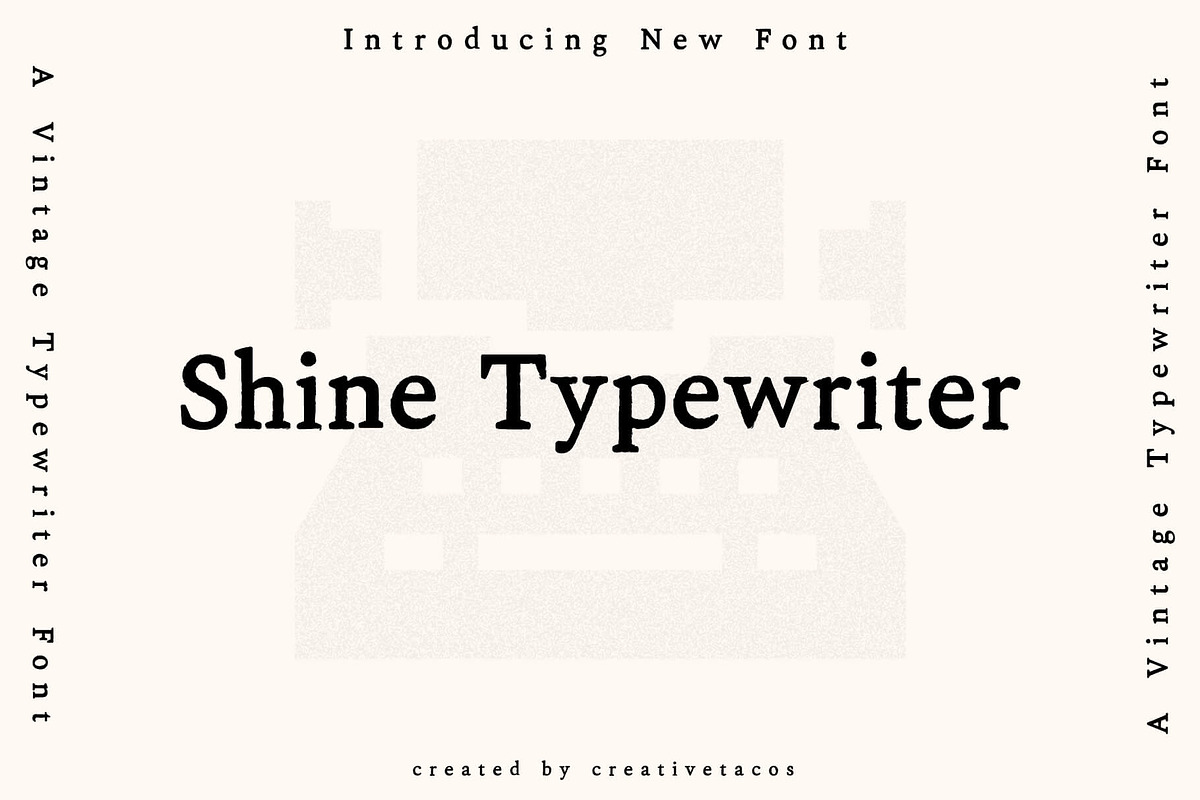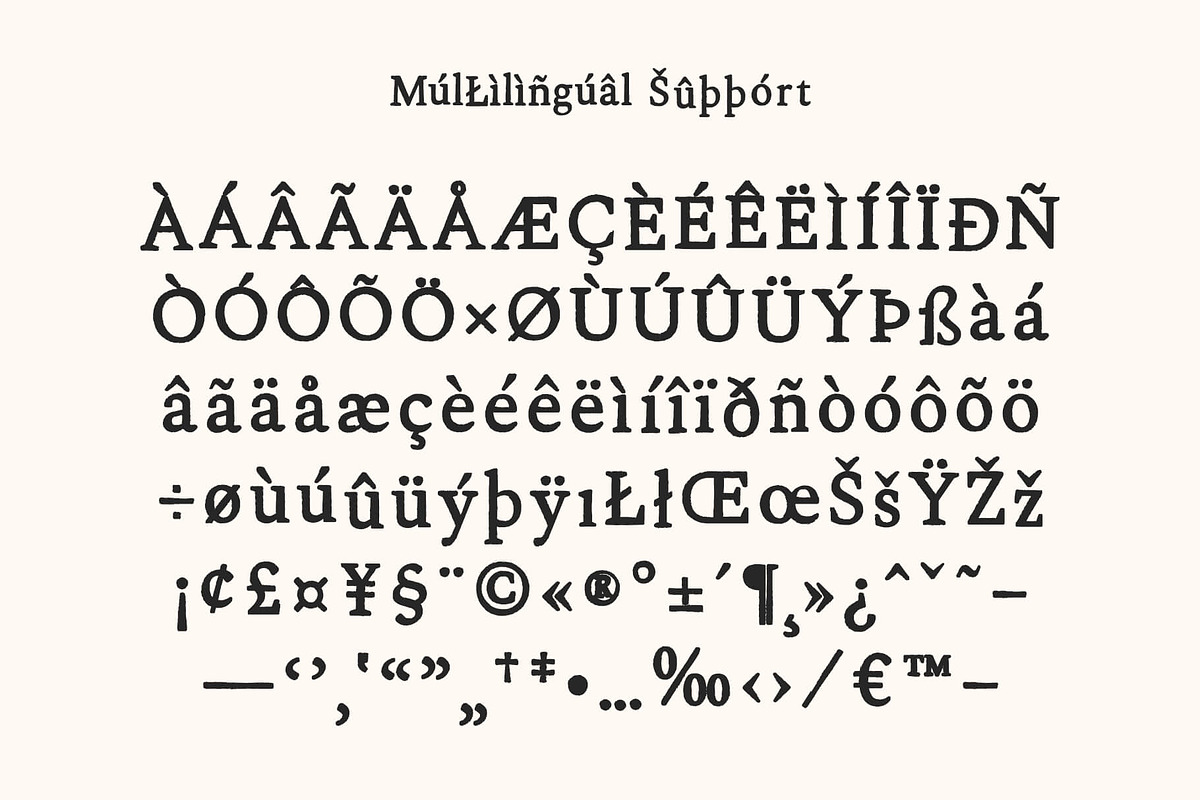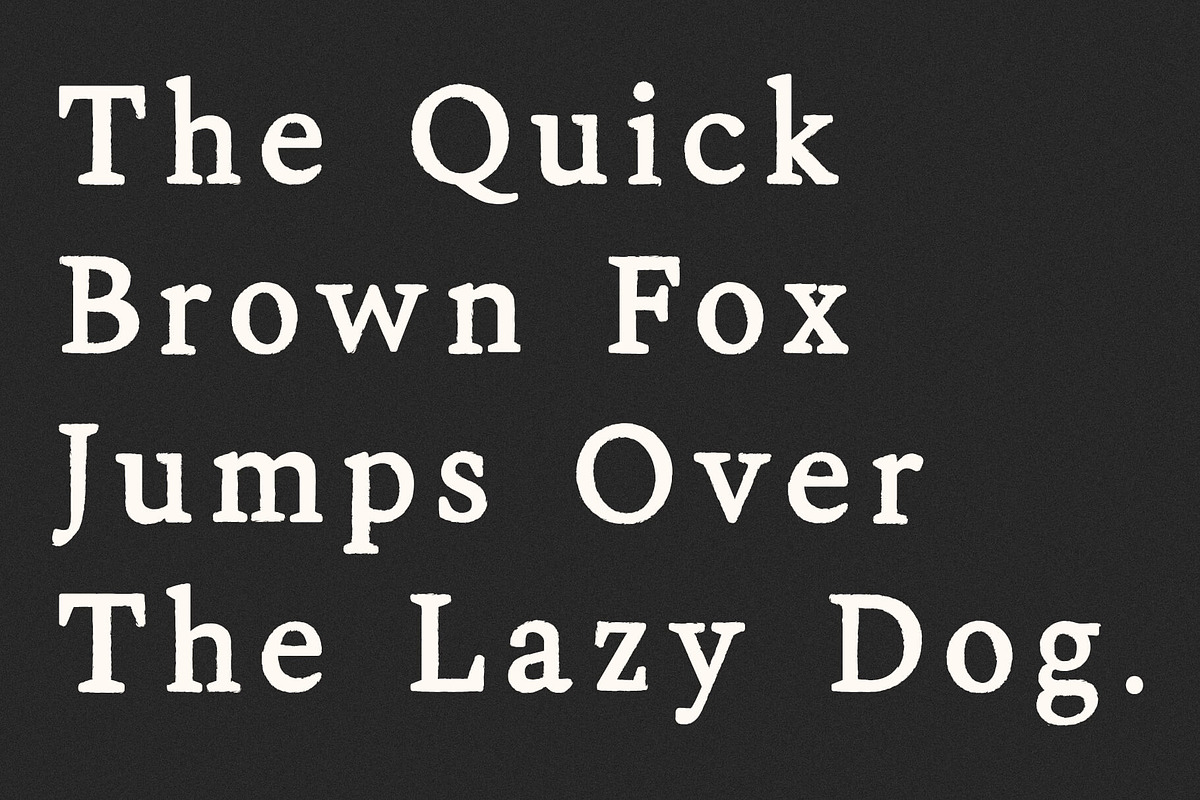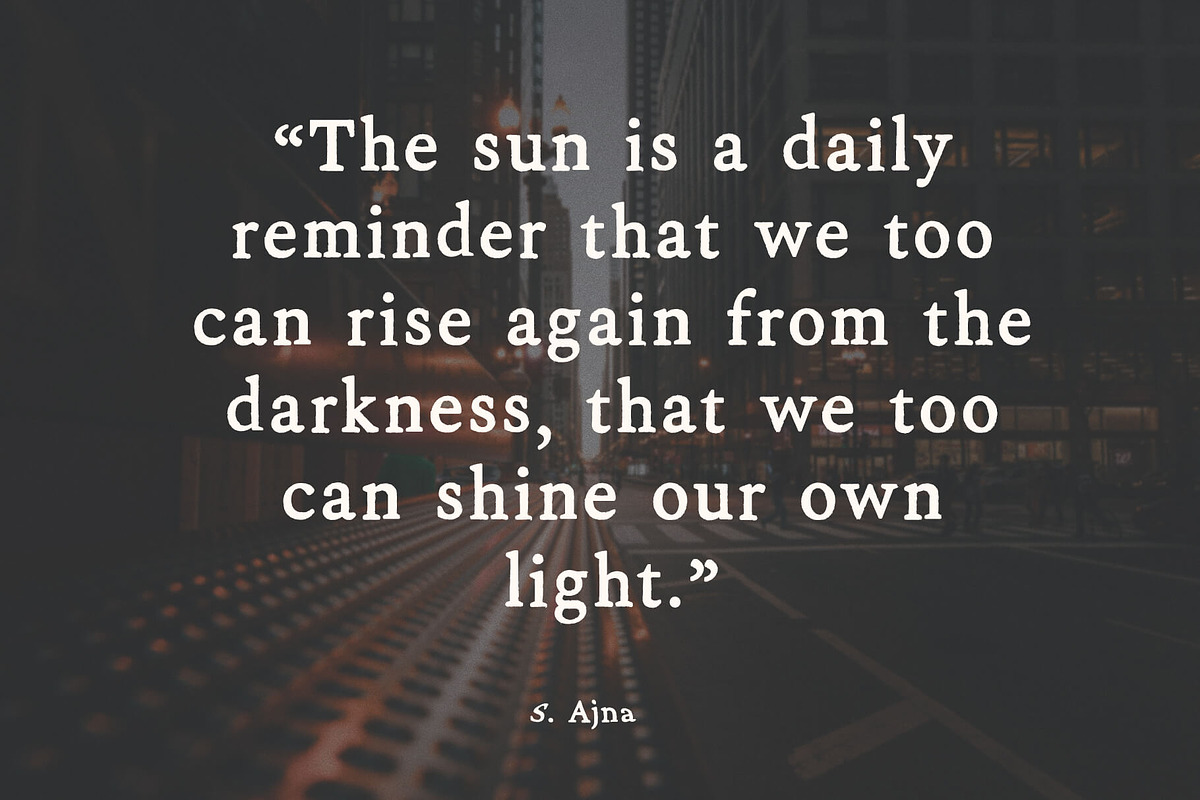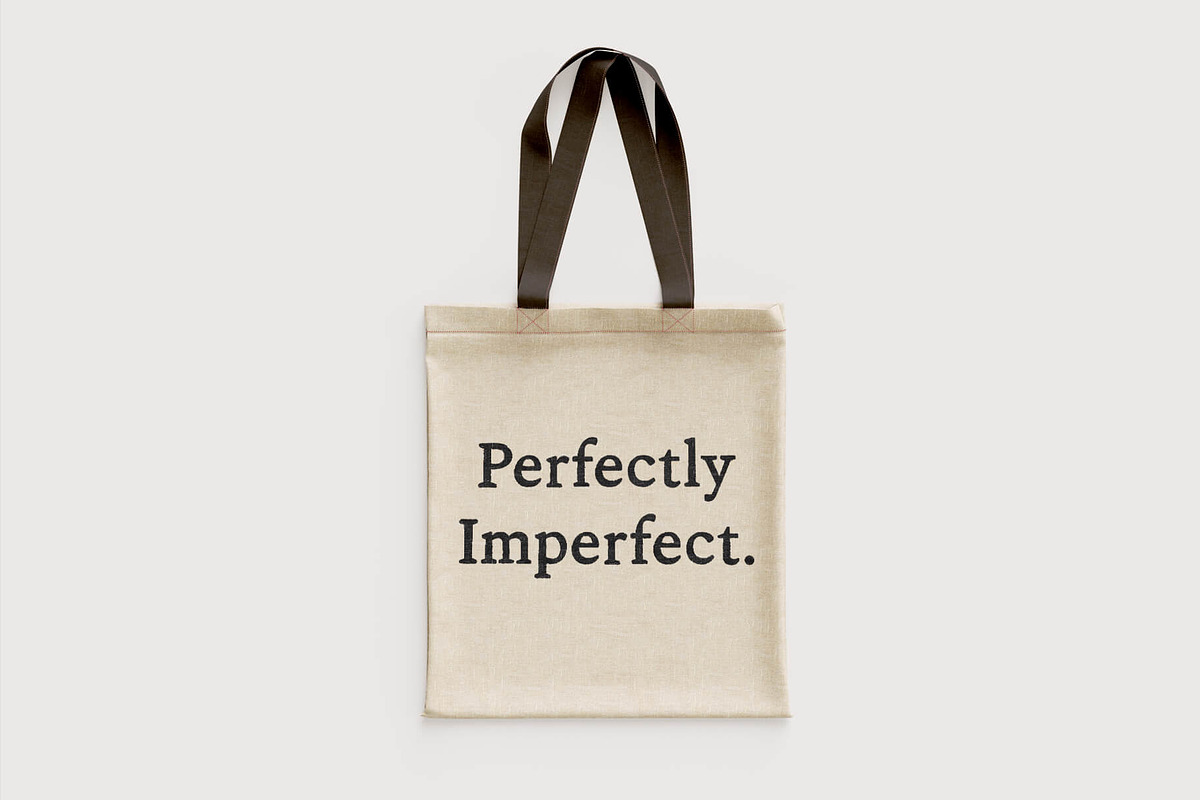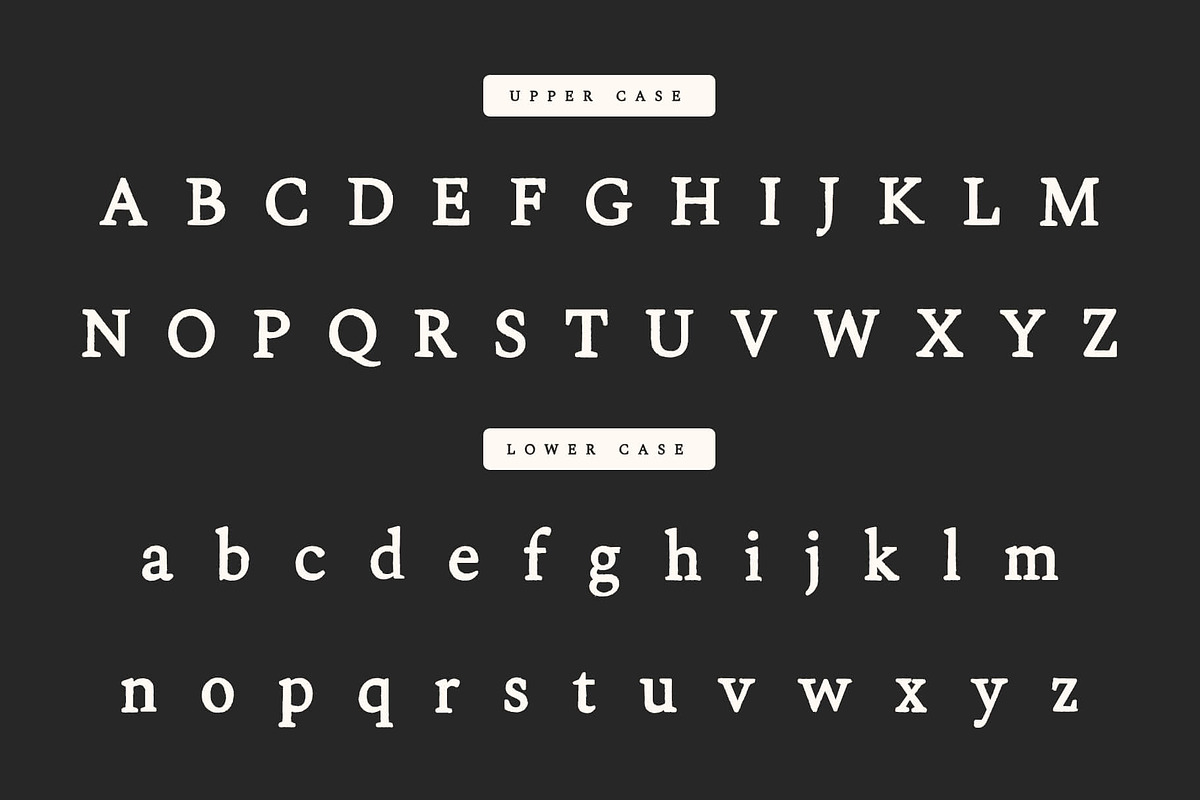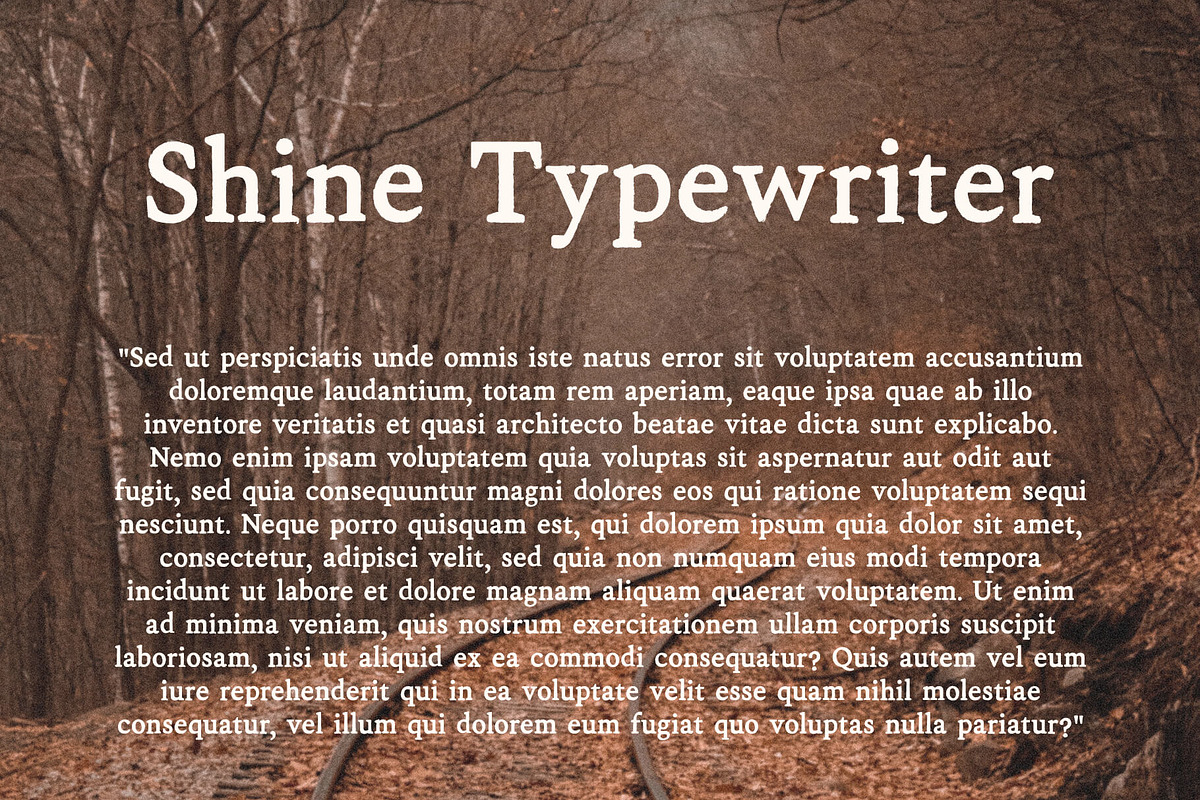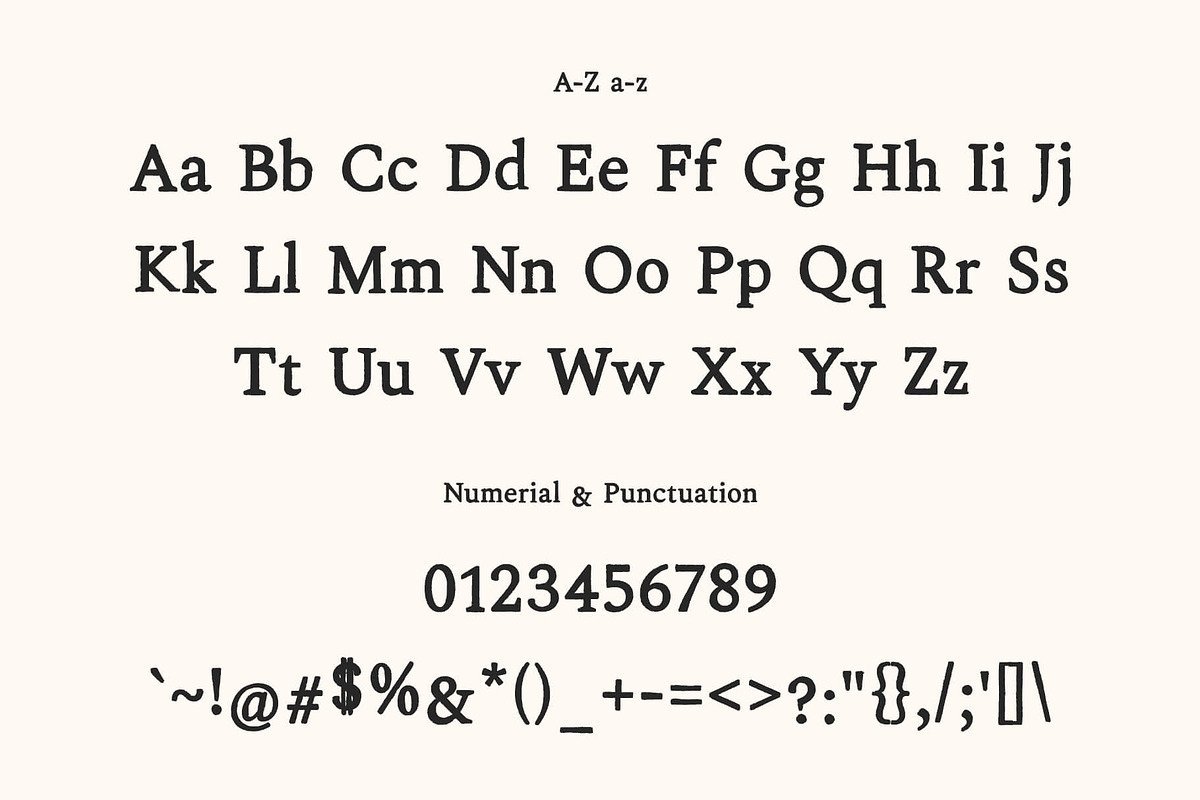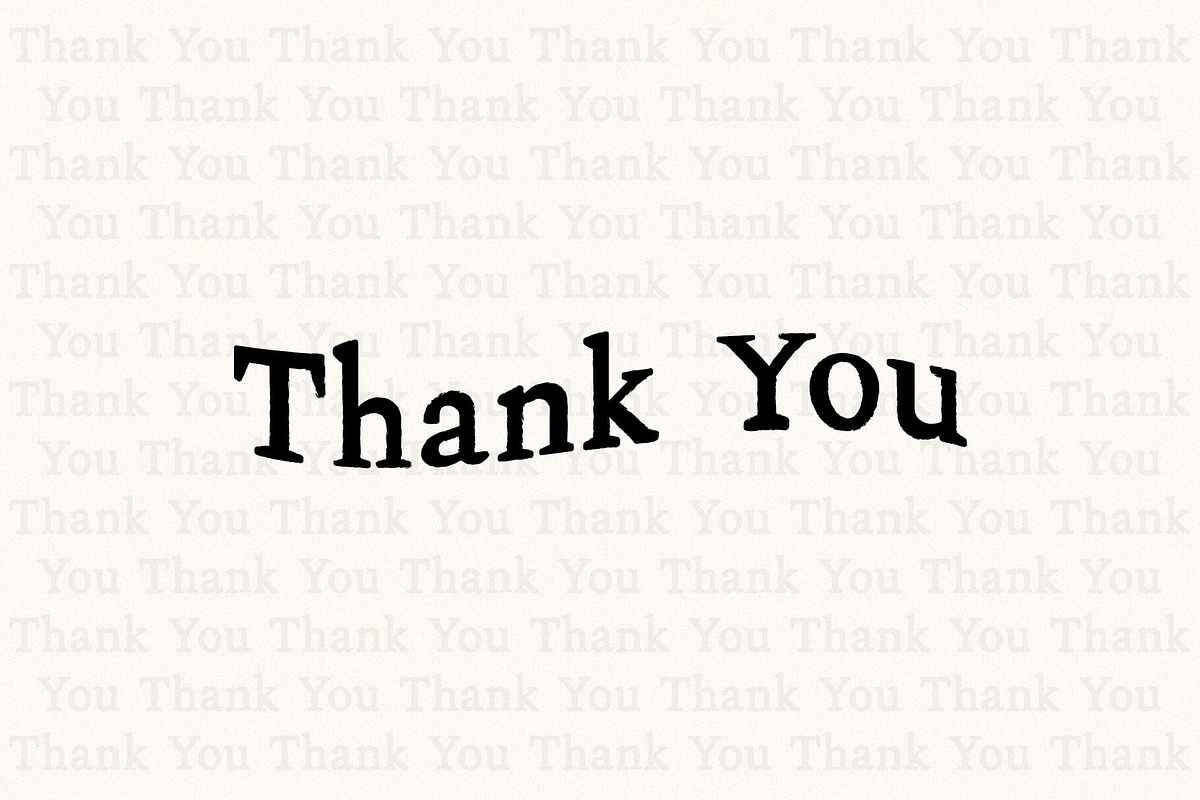
Shine Typewriter Serif Font
Shine Typewriter is a funky, creative and thematic handmade typewriter font that will add a retro or forensics style into your designs projects that you wish to create! It contains uppercase, lowercase, number, punctuation and symbols. Shine Typewriter font will be perfect for packaging, presentations, logo, headlines, lettering, posters, branding, quotes, titles, magazines headings, web layouts, advertising, invitations, packaging design, books, and nearly any creative design.
Shine Typewriter Font Features:
- Uppercase Letters
- Lowercase Letters
- Support Multilingual ( Latin Supplement + Latin Extended A)